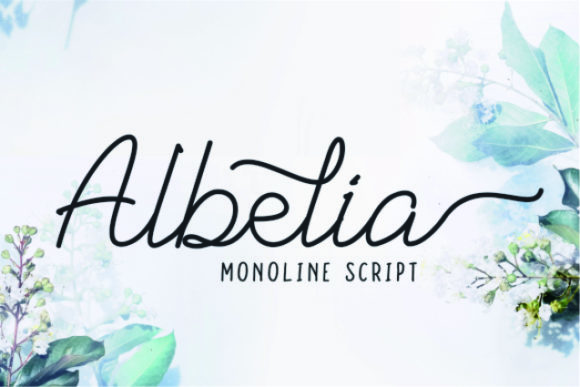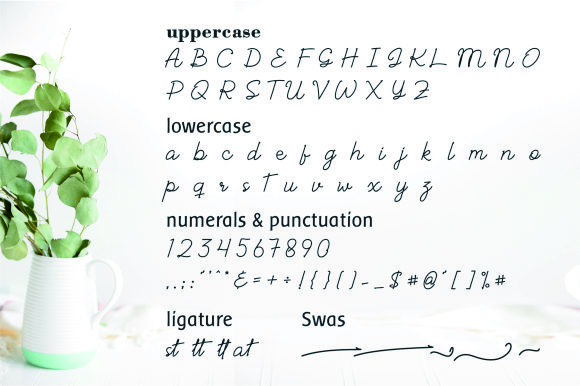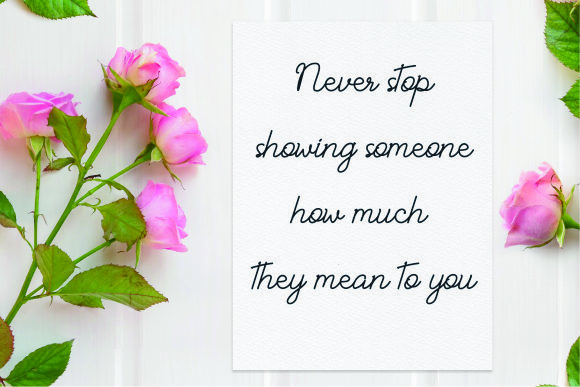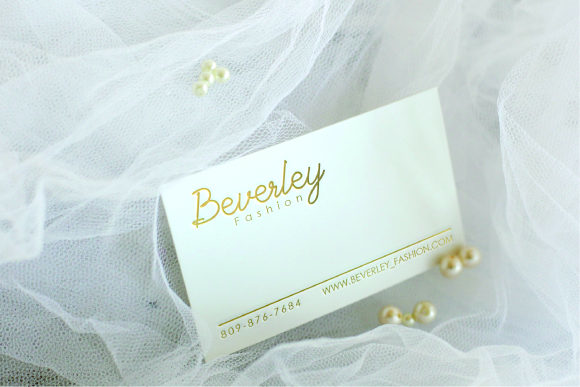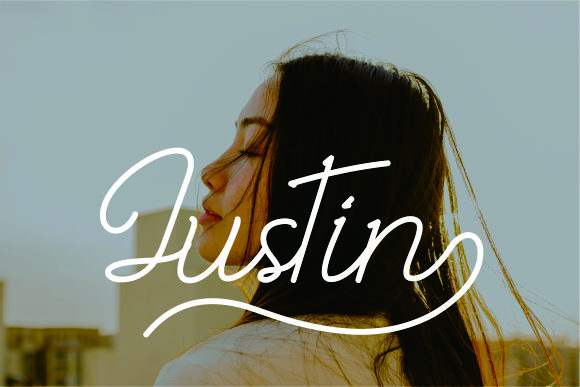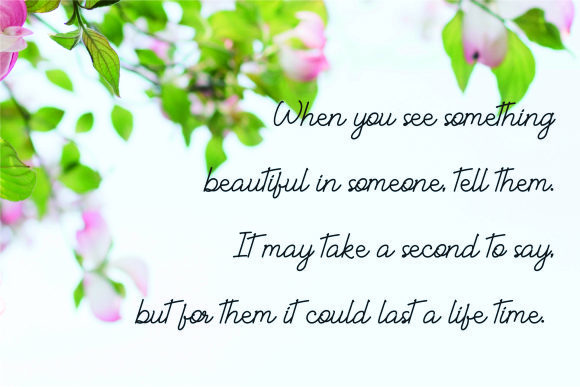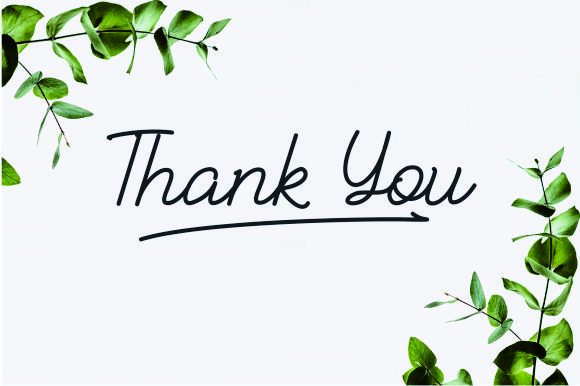
Albelia Script Font
About Albelia Script Font
The Albelia is a beautiful mono-line script. It has an elegant and feminine feel which is perfect for branding, wedding invitations, logos, and much more!